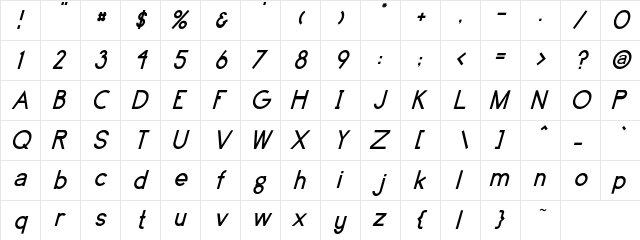
Brassfield-Ital Regular
Design Context for Brassfield-Ital Typeface
Brassfield-Ital is a composed and adaptable typeface that performs quietly and consistently across a wide range of design contexts.